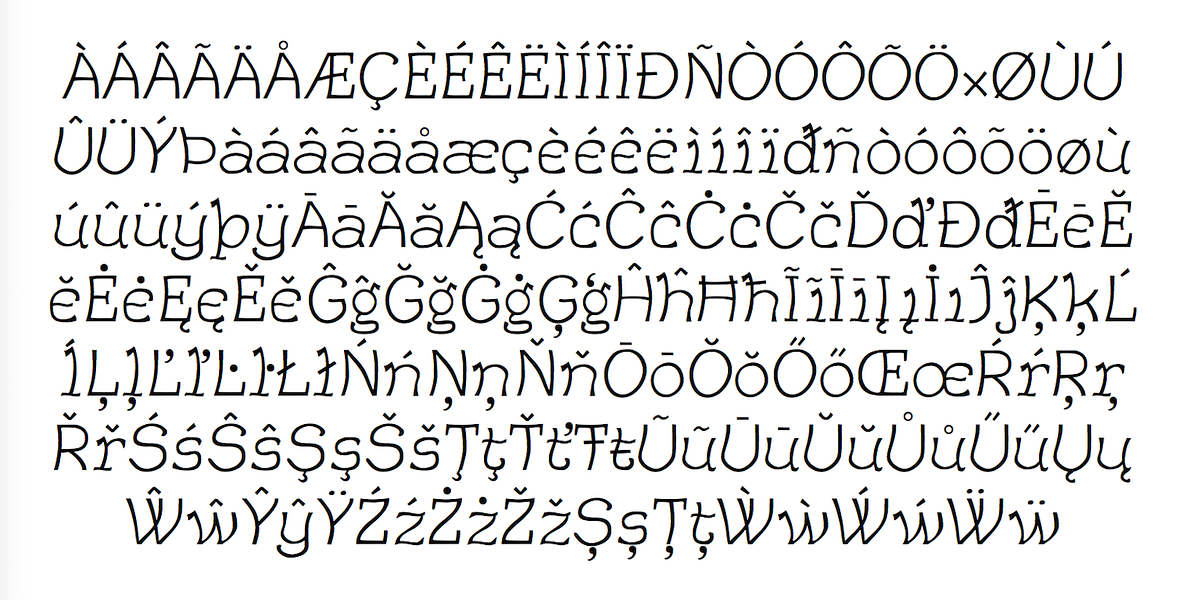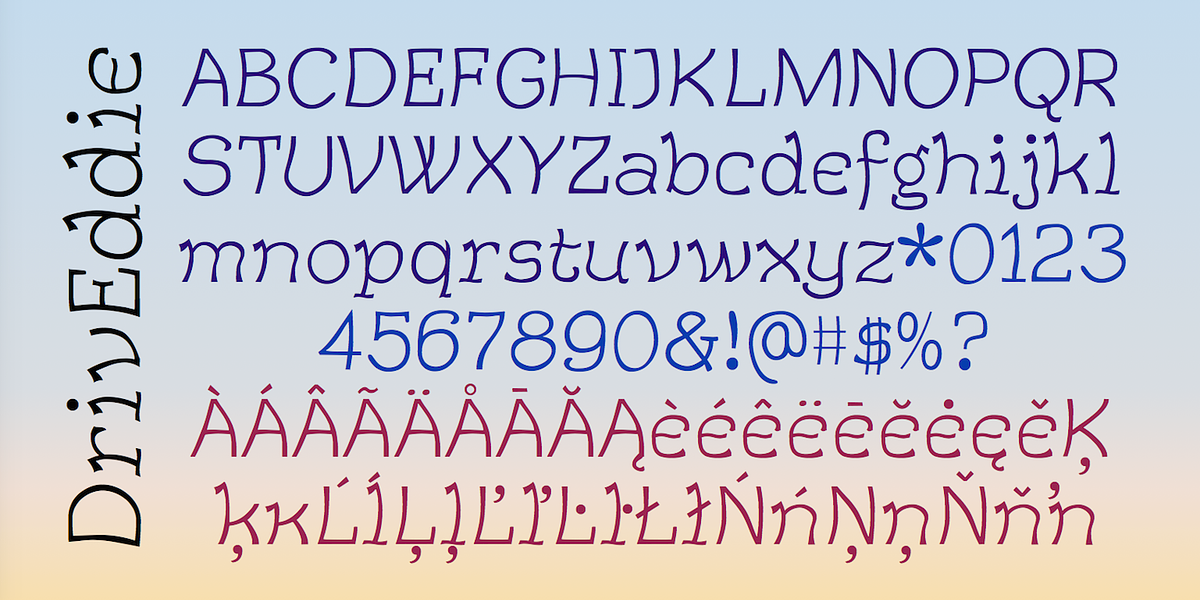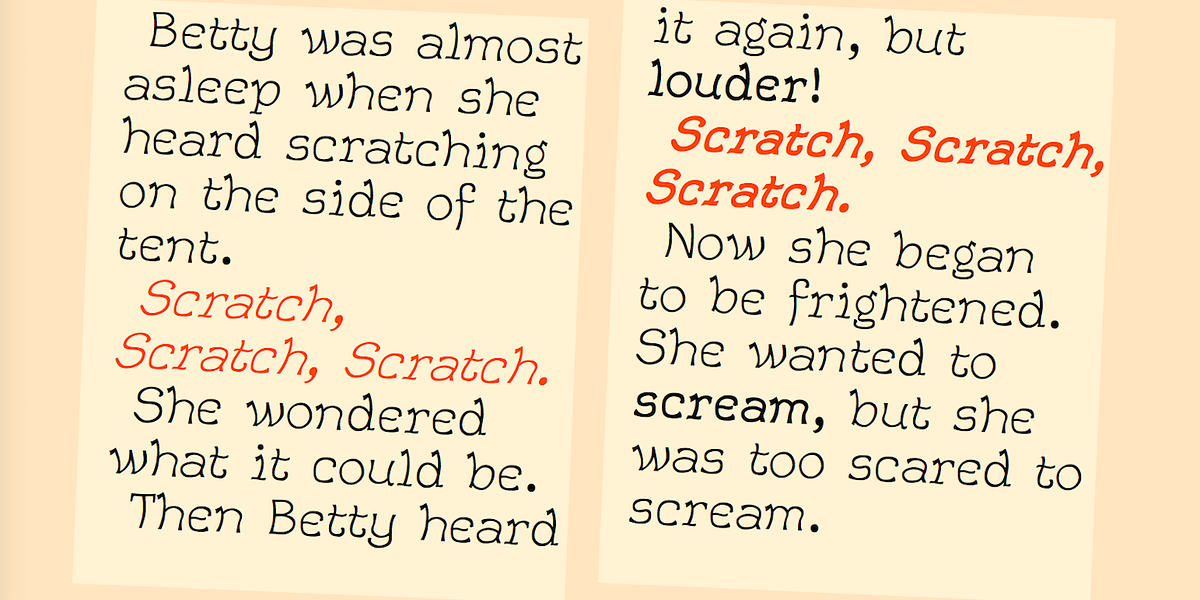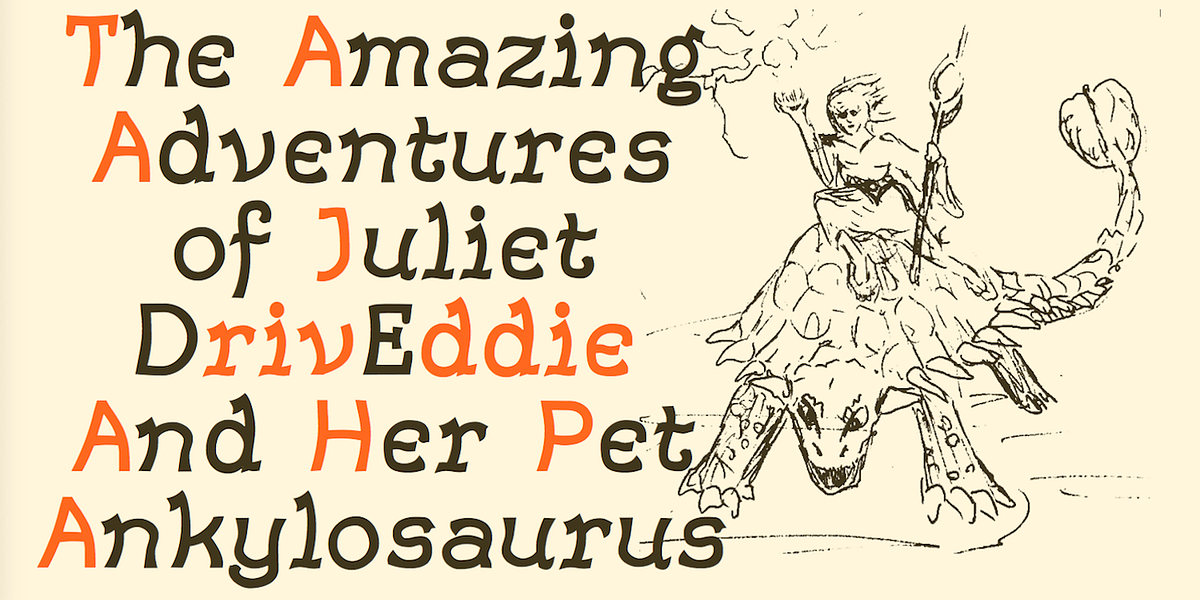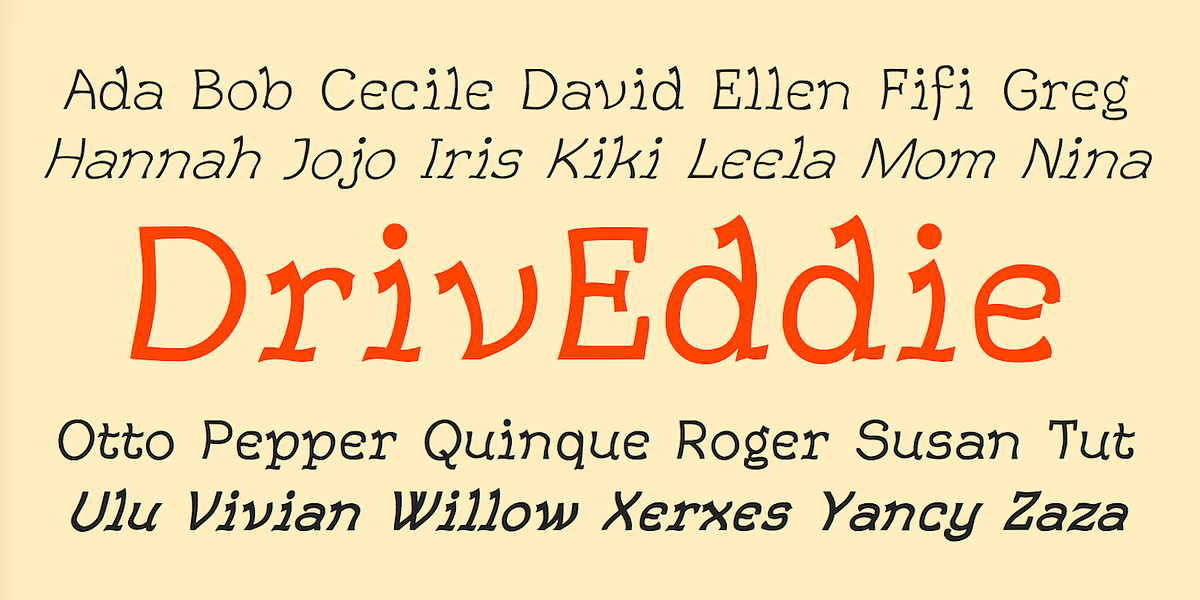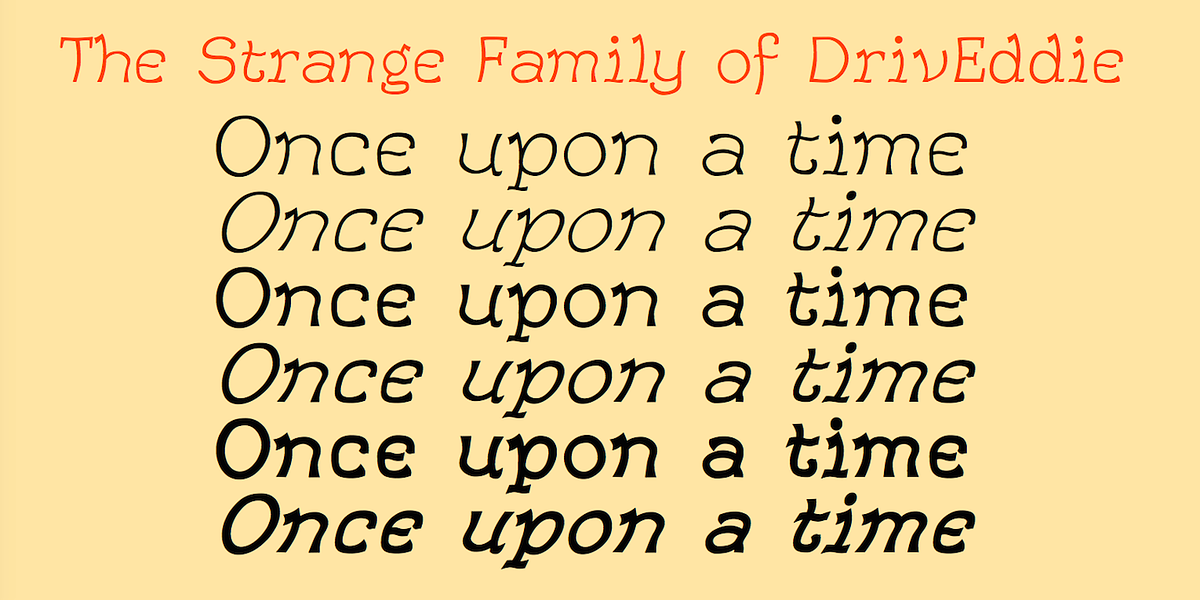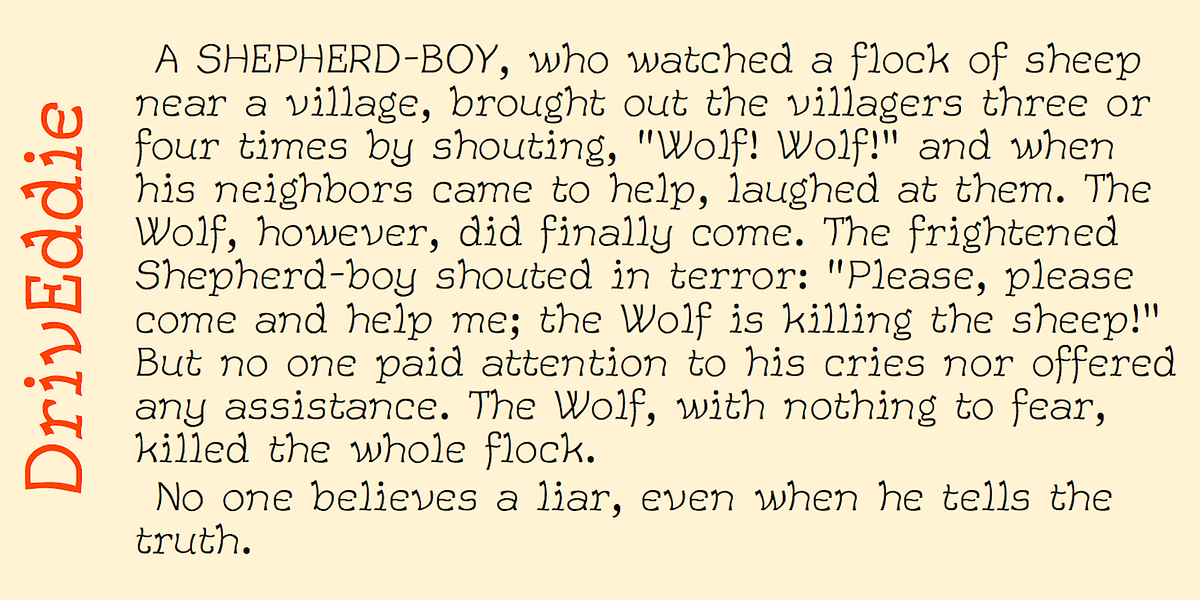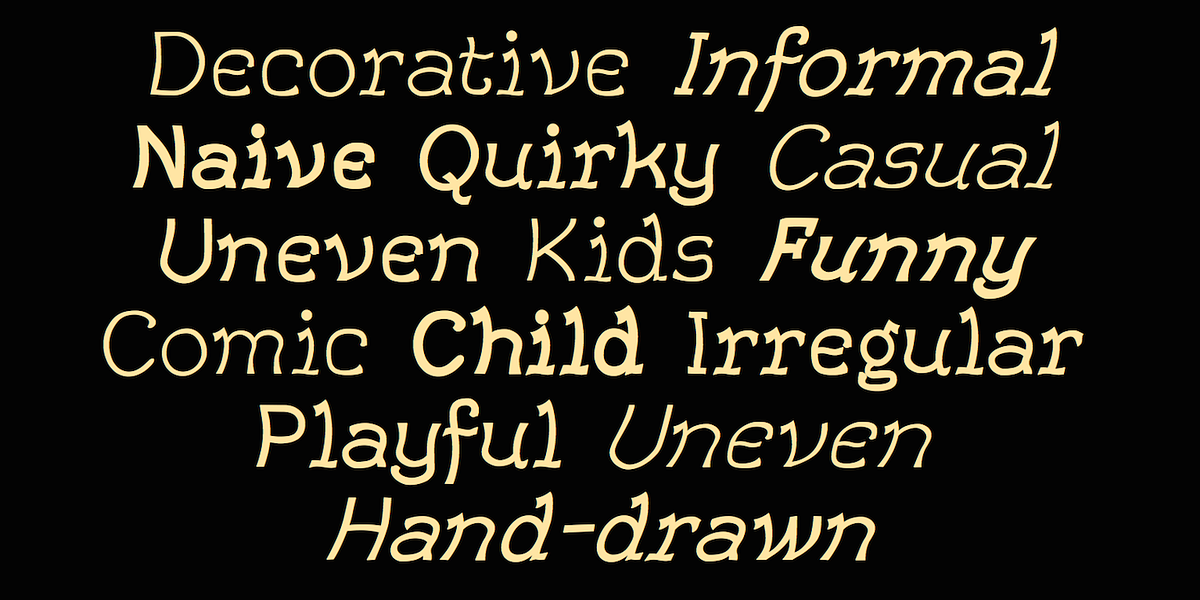
DrivEddie
DrivEddie is a hand-drawn serif font designed to be both quirky and easily readable. It features curved vertical stems and has been expanded to include italic, semibold, and bold styles for increased versatility.